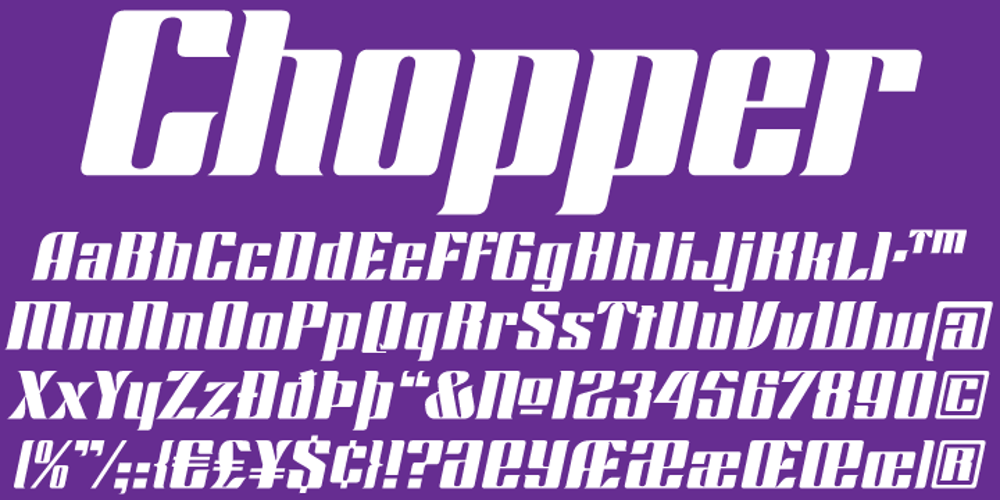
Chopper
Chopper font
Chopper Font Family was designed by Rebecca Alaccari, Harry Villhardt and published by Canada Type. Chopper contains 4 styles and family package options. In 1972, VGC released two typefaces by designer friends Dick Jensen and Harry Villhardt. Jensen’s was called Serpentine, and Villhardt’s was called Venture. Even though both faces had the same elements and a somewhat similar construct, one of them became very popular and chased the other away from the spotlight. Serpentine went on to become the James Bond font, the Pepsi and every other soda pop font, the everything font, all the way through the glories of digital lala-land where it was hacked, imitated and overused by hundreds of designers. But the only advantage it really had over Venture was being a 4-style family, including the bold italic that made it all the rage, as opposed to Venture’s lone upright style. One must wonder how differently things would have played if a Venture Italic was around back then. Chopper is Canada Type’s revival of Venture, that underdog of 1972. This time around it comes with a roman, an italic, and corresponding biform styles to make it a much more attractive and refreshing alternative to Serpentine. Chopper comes in all popular formats, boasts extended language support, and contains a ton of alternate characters sprinkled throughout the character map.